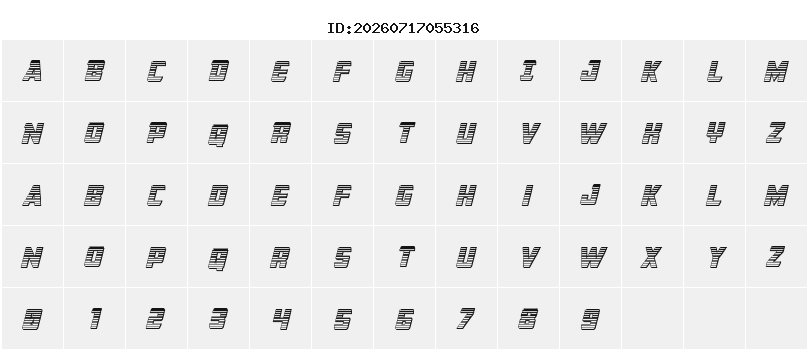
Buchanan Chrome Italic Preview
• Font Name: Buchanan Chrome Italic
• Full Font Name: Buchanan Chrome Italic
About Buchanan Chrome Italic.ttf
Buchanan Chrome Italic.ttf is a modern, elegant sans-serif font designed for ultimate readability and visual harmony. Perfect for branding, headlines, web design, and print materials.